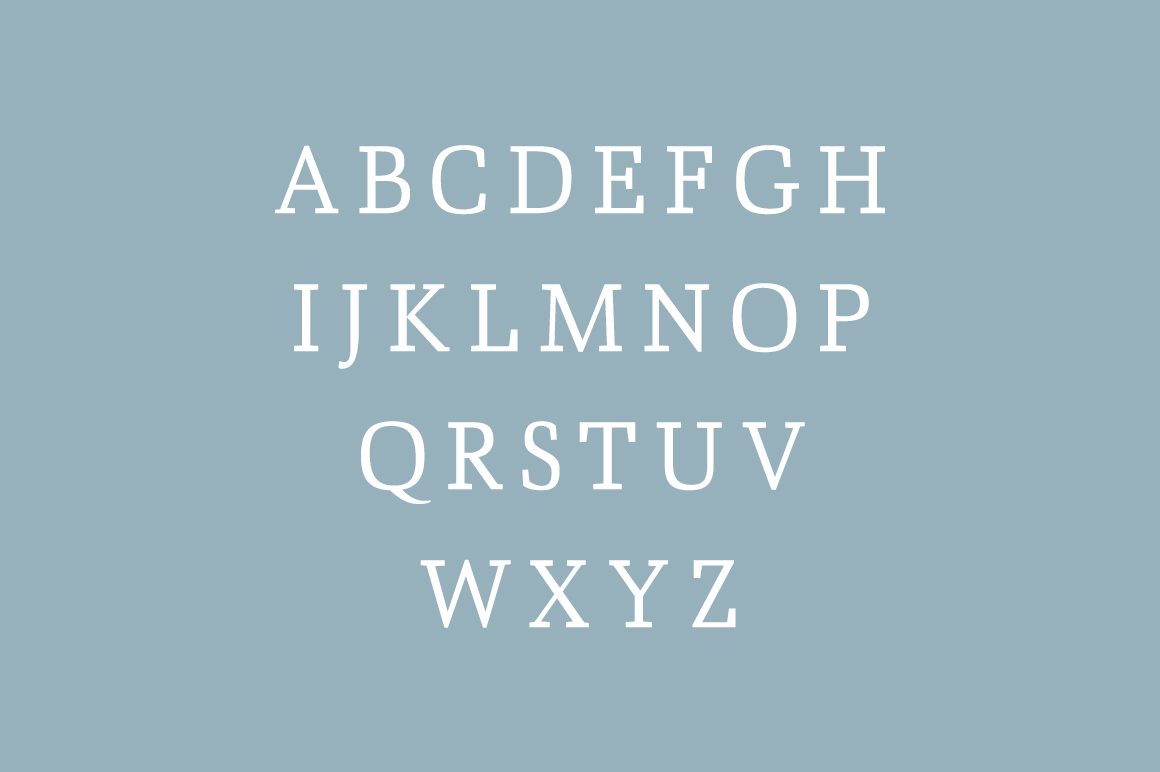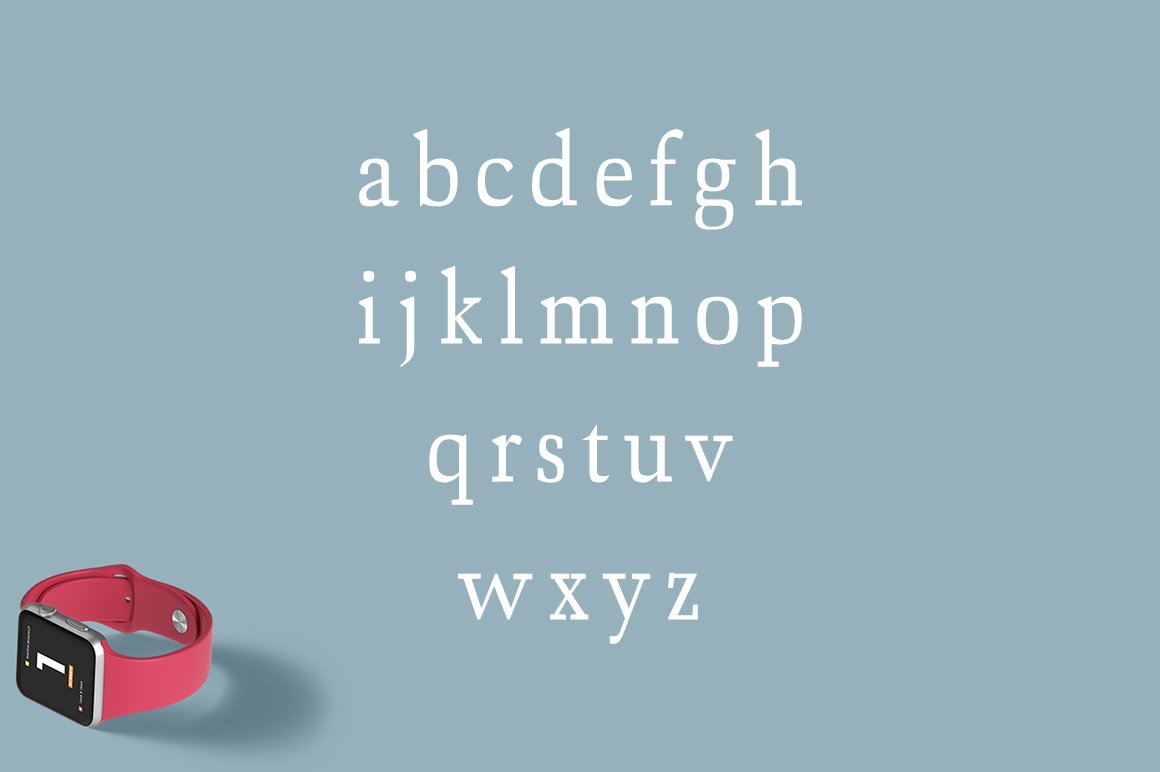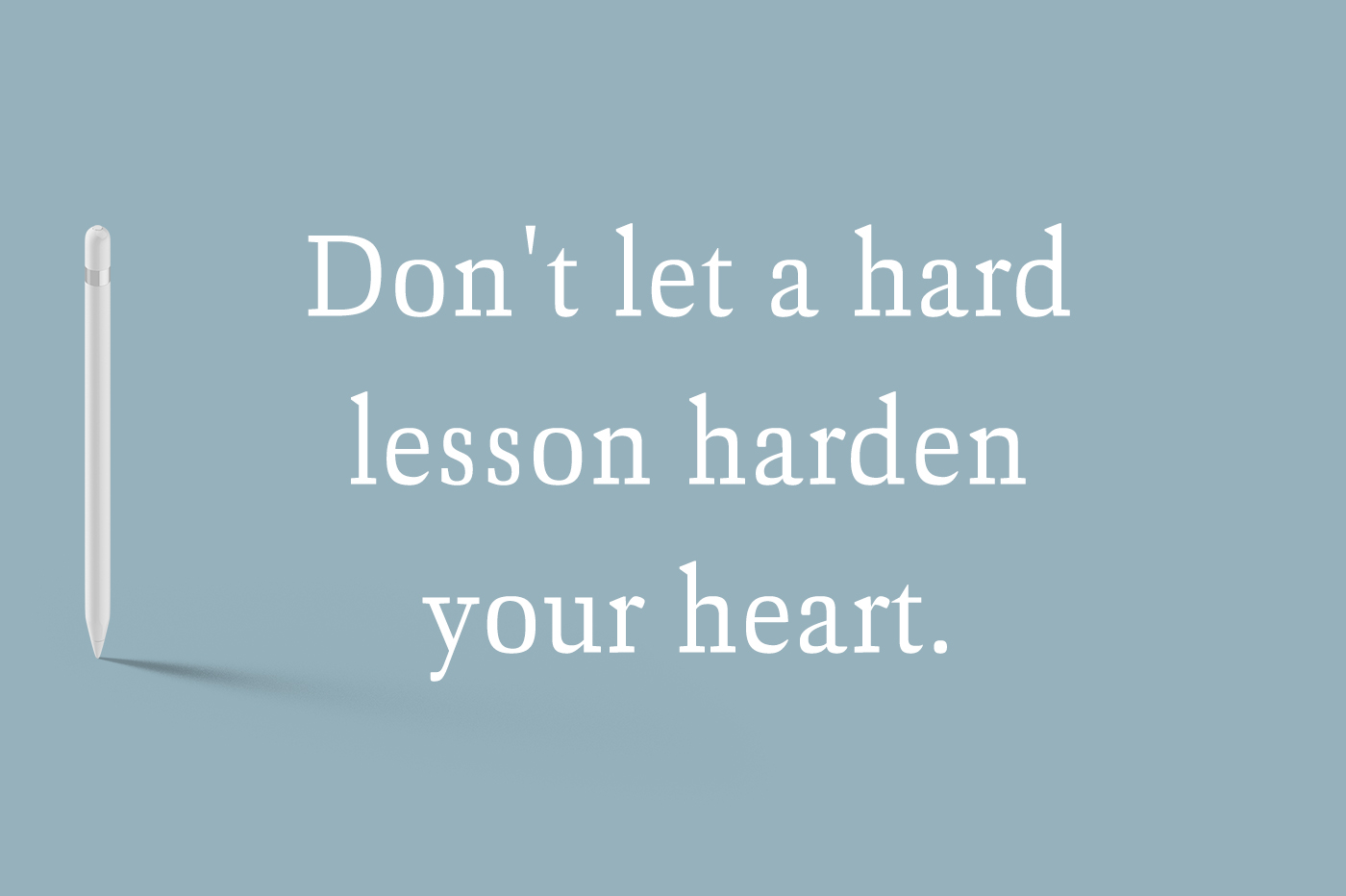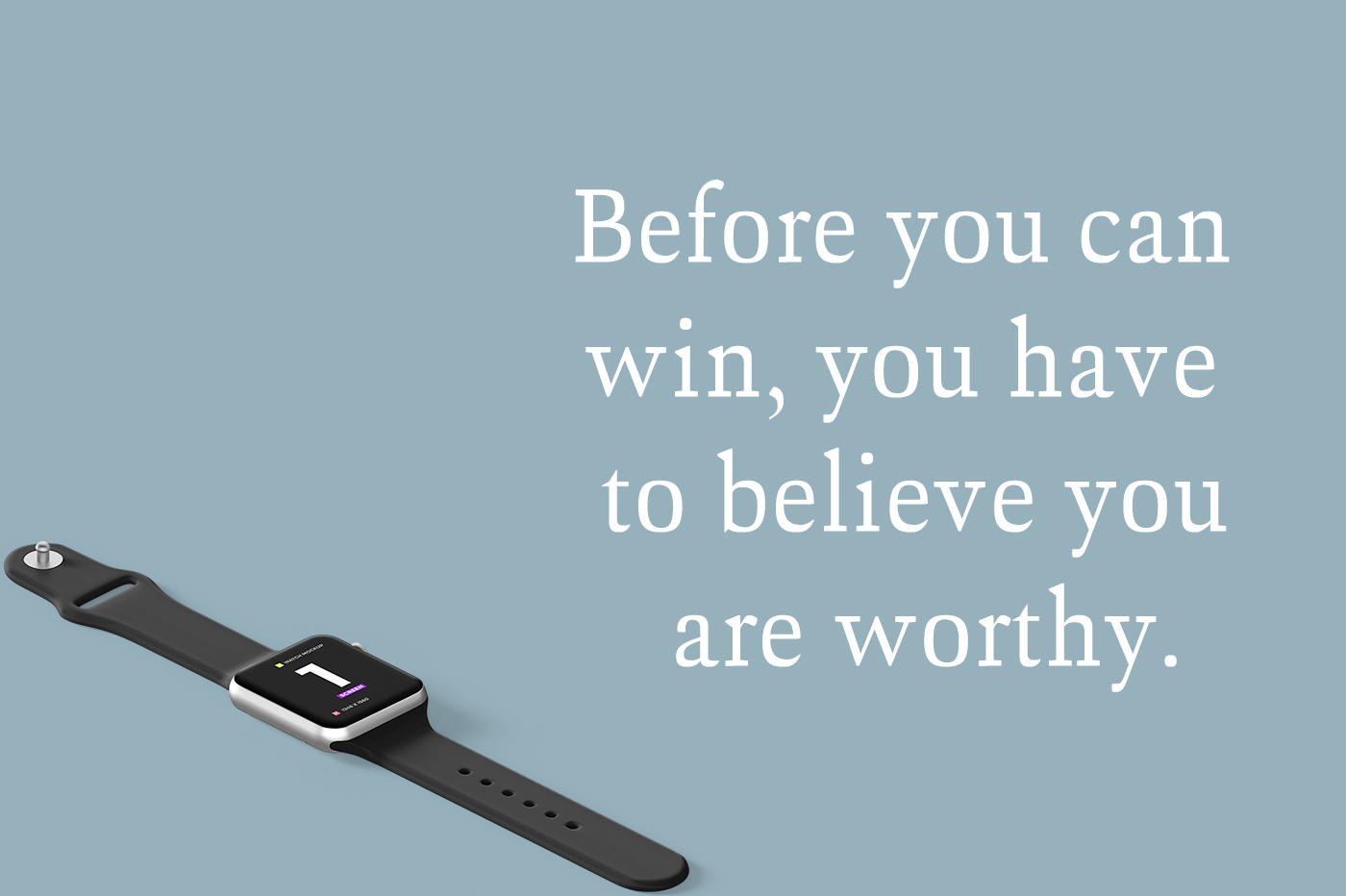
Ailish
Ailish: A Versatile and Stylish Slab Serif Font
Ailish is a charming slab serif font that offers designers a powerful and flexible tool for creating impactful typography. With its three distinct weights, Ailish provides ample versatility for various design projects, making it an excellent choice for both modern and creative applications.
Key Features of Ailish Font
• Three Weights: Ailish comes in 3 different weights, allowing for versatile typography
• Creative Display: Ideal for making eye-catching and creative displays
• Unique Style: A lovely and distinctive slab serif design that adds flair to each word
• Modern Appeal: Well-suited for clean, contemporary designs
• Conceptual Depth: Can be used creatively to add depth to your designs
Ideal Uses for Ailish
Ailish’s versatile design makes it particularly well-suited for:
• Modern branding and logo design
• Creative displays and presentations
• Editorial layouts seeking a stylish typographic voice
• Web design and digital media
• Conceptual and artistic projects
Comparison with Other Slab Serif Fonts
While Ailish shares characteristics with other slab serifs like Tecnica Slab Family, its unique blend of modern style and versatility sets it apart. Unlike more traditional slab serifs such as Osgood Slab, Ailish offers a more contemporary approach to typography while maintaining the classic slab serif structure.
When incorporating Ailish into your designs, consider the following tips:
• Experiment with different weights to create hierarchy and visual interest in your layouts
• Use for both headlines and short blocks of text to showcase its versatility
• Pair with sans-serif fonts for a balanced, modern look
• Consider using it in projects where you want to combine clean design with conceptual depth
Ailish is an excellent choice for designers looking to add a modern and versatile slab serif to their typographic toolkit. Its range of weights and unique style make it stand out in the world of typography. Whether you’re working on logo designs, editorial layouts, or creating eye-catching website headers, Ailish offers the perfect blend of style and functionality.